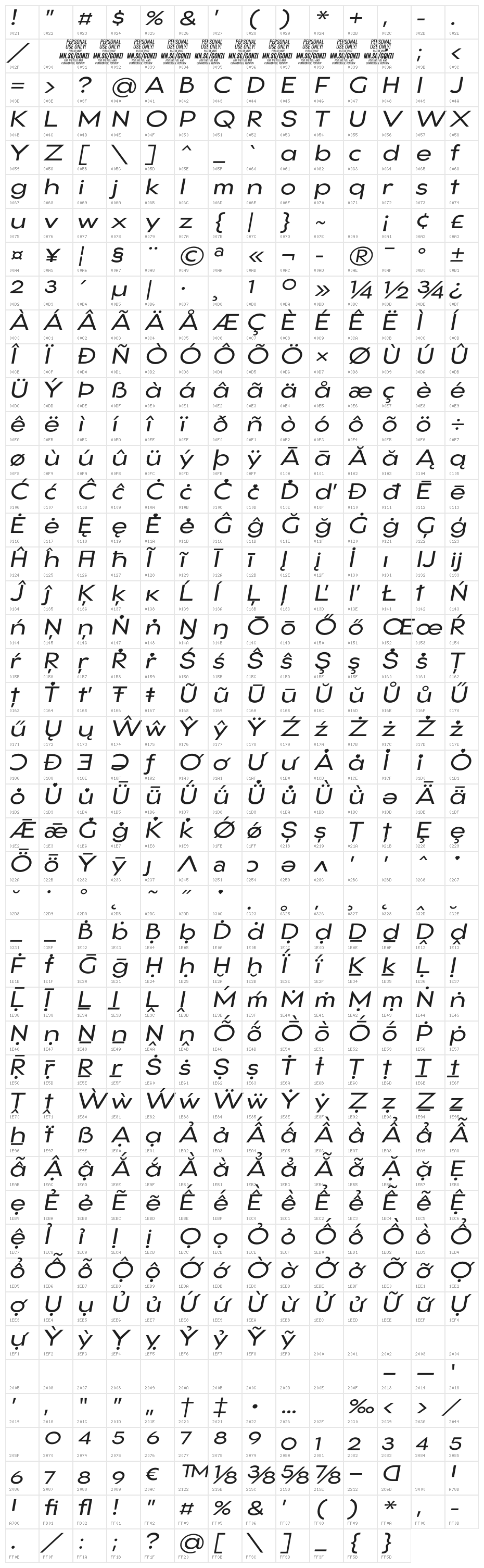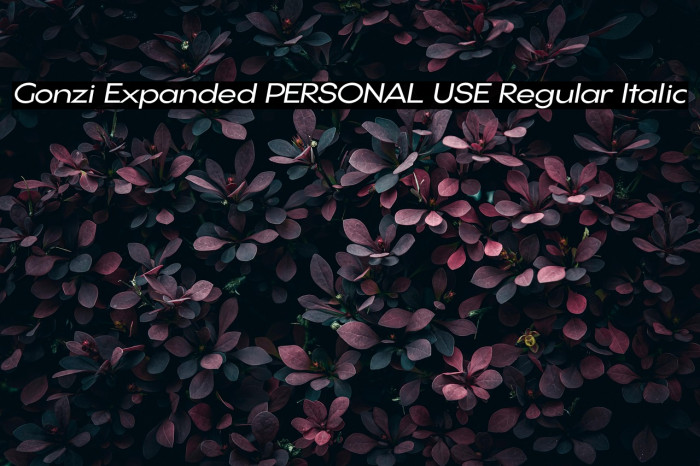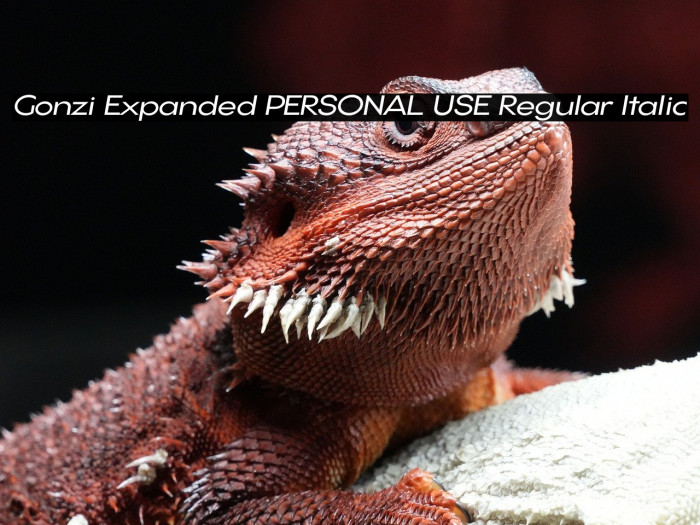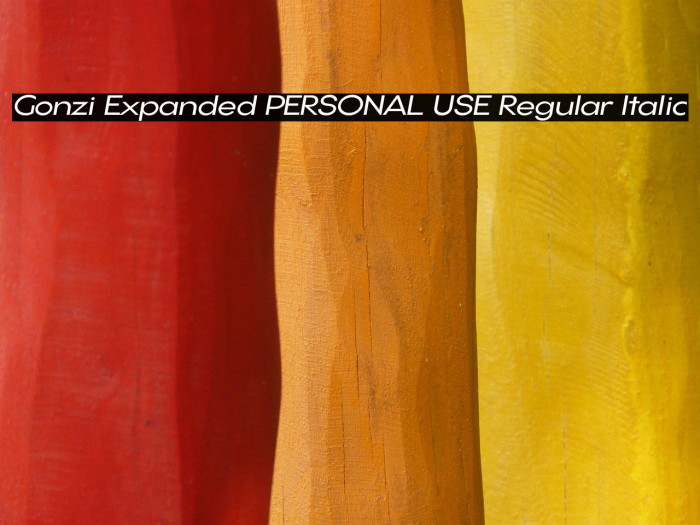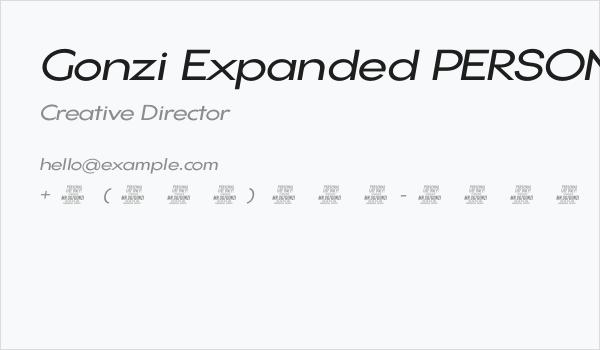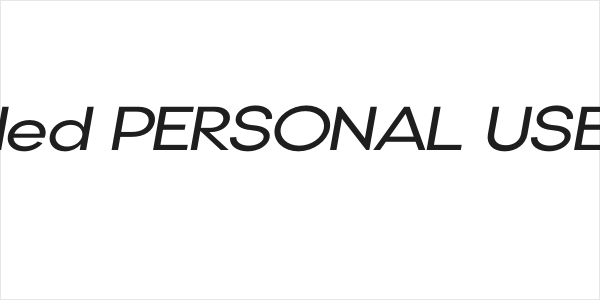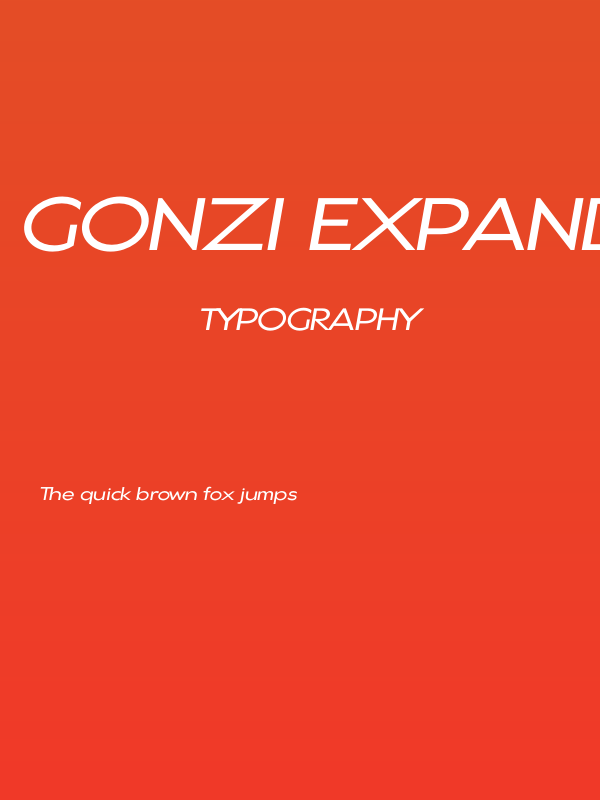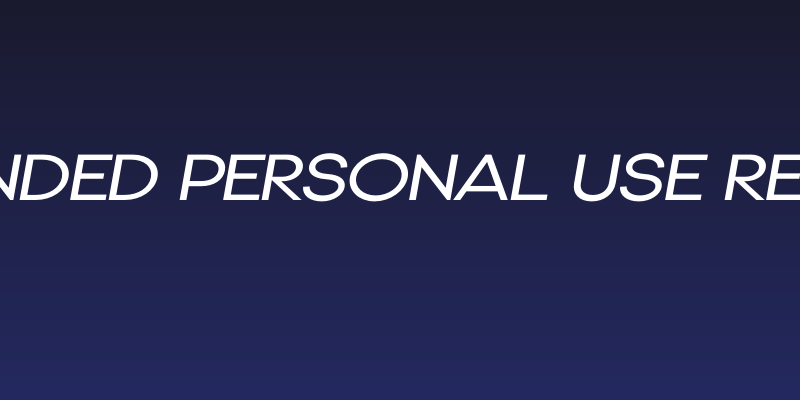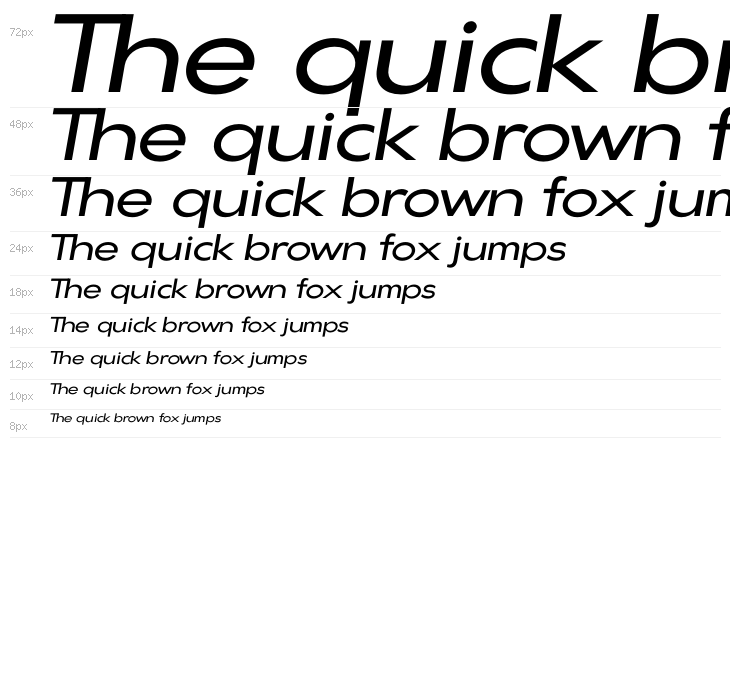
Gonzi Expanded PERSONAL USE Regular Italic Font
Gonzi Expanded PERSONAL USE Regular Italic Description
This font features a sleek, modern design with an expanded width and italicized style. The characters are clean and geometric, providing a contemporary look that is both professional and stylish. The uppercase and lowercase letters maintain a consistent slant, enhancing the italic effect. Numbers and special characters are designed with the same attention to detail, ensuring uniformity across all glyphs. The font's expanded nature gives it a unique presence, making it suitable for various design applications where a modern and dynamic appearance is desired.
Use CaseHeadlines, Logos, Branding
Proposed ProjectsIdeal for branding, advertising, and editorial design projects where a modern and dynamic appearance is needed.